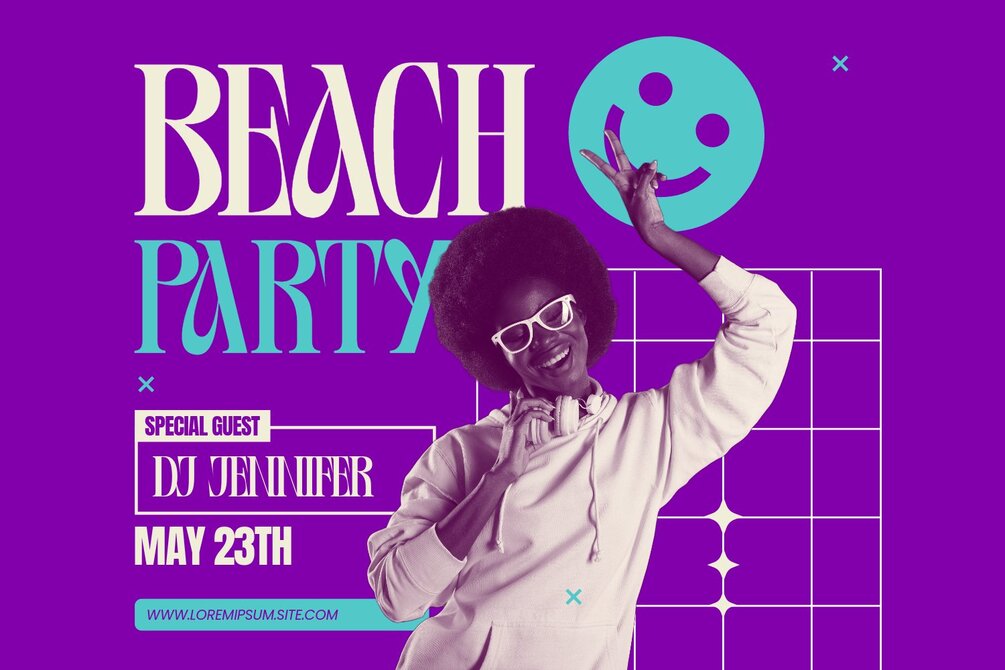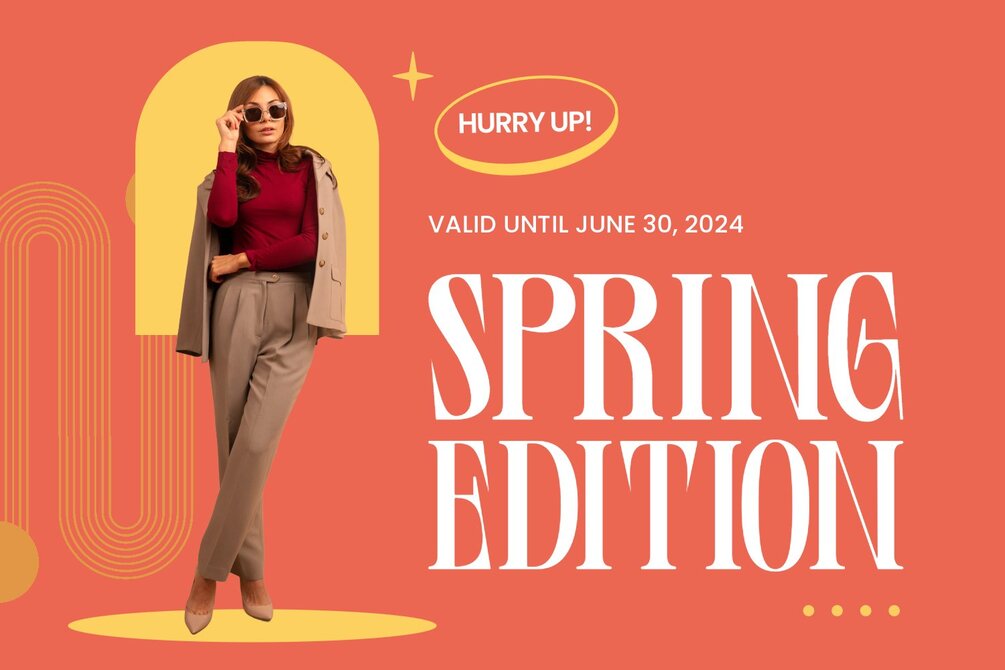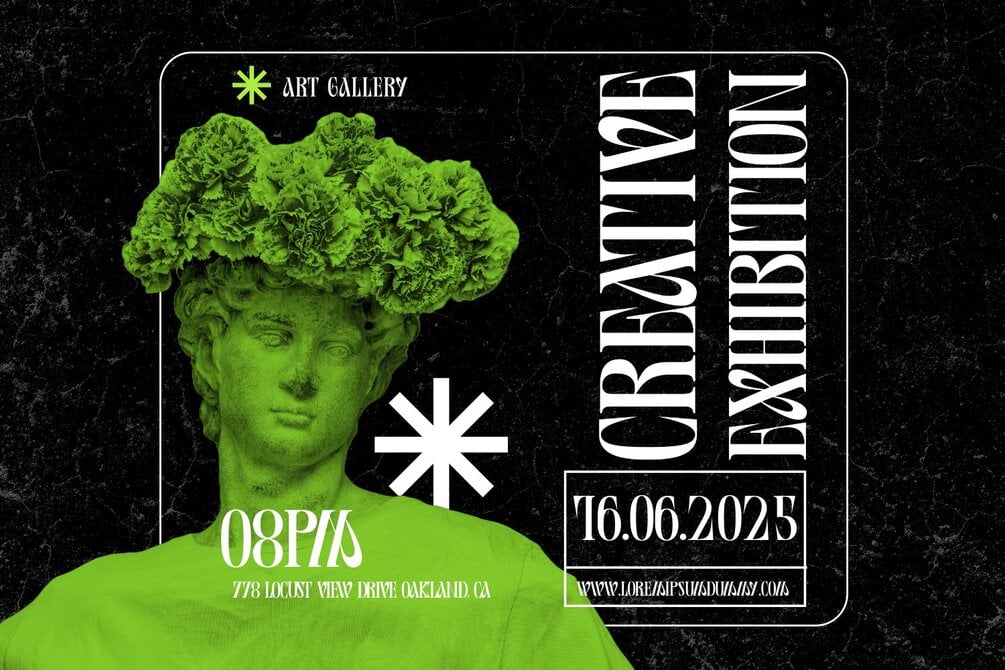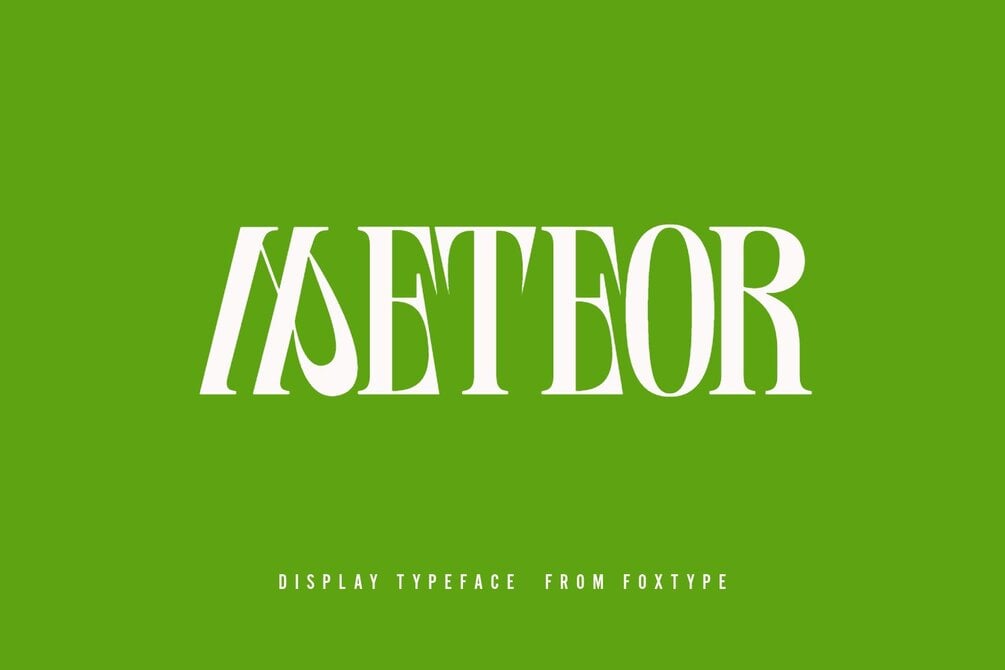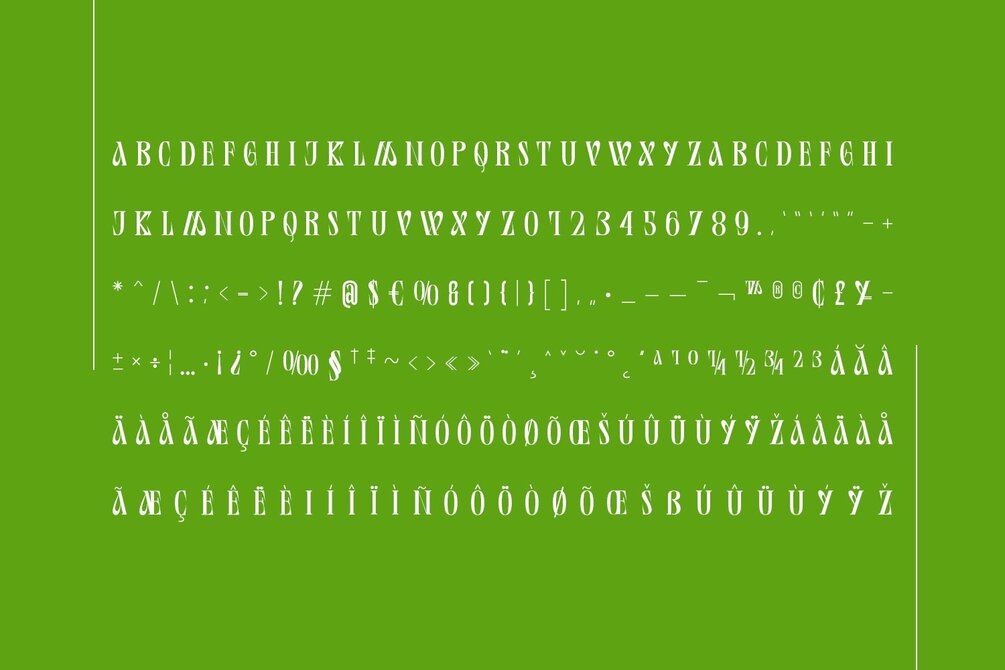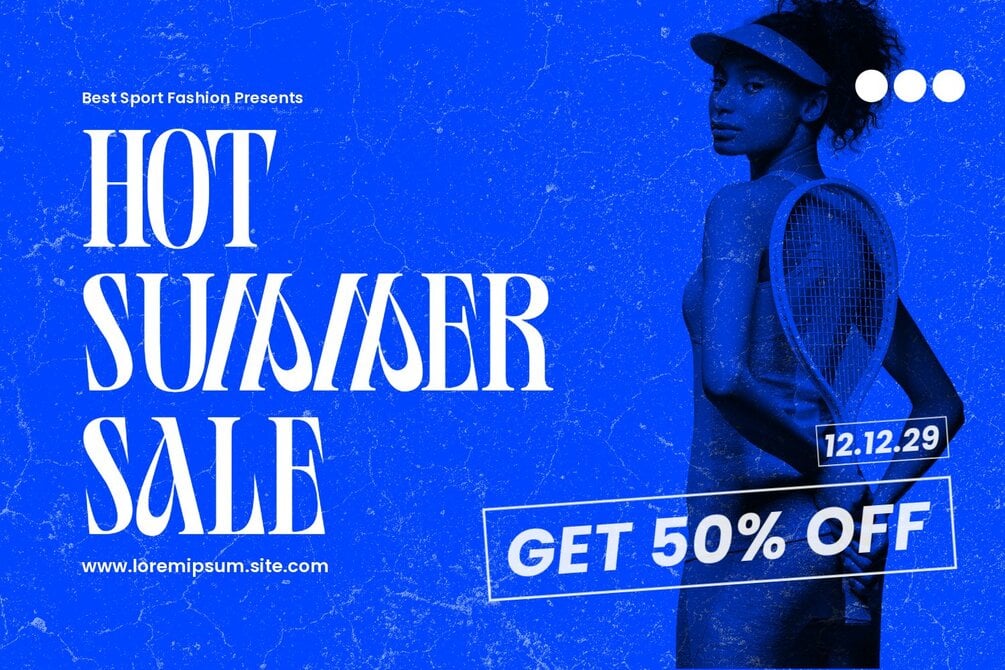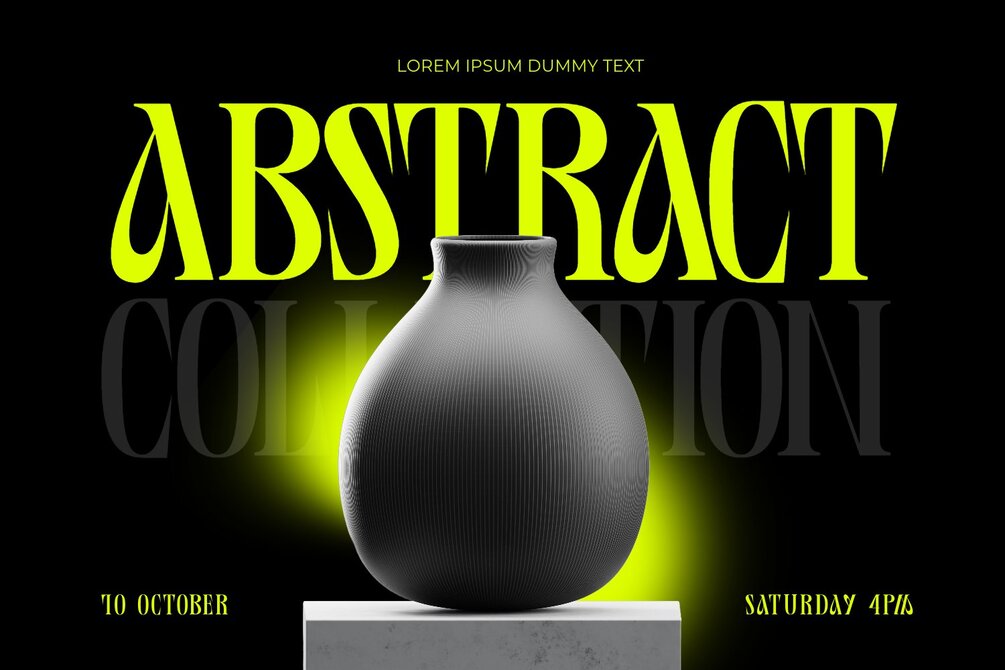
Meteor Display Typeface
Introducing Meteor Display new generation Decorative Typeface. Meteor Typeface created with the vision of to attract the audience to your brand. The finest details of this typeface are methodically and mathematically created. Meteor is created with all the tasks of a corporate font and also for the usage in a variety of projects, including branding, logos, titles, headlines, posters, screens, display, digital ads, and everything else.